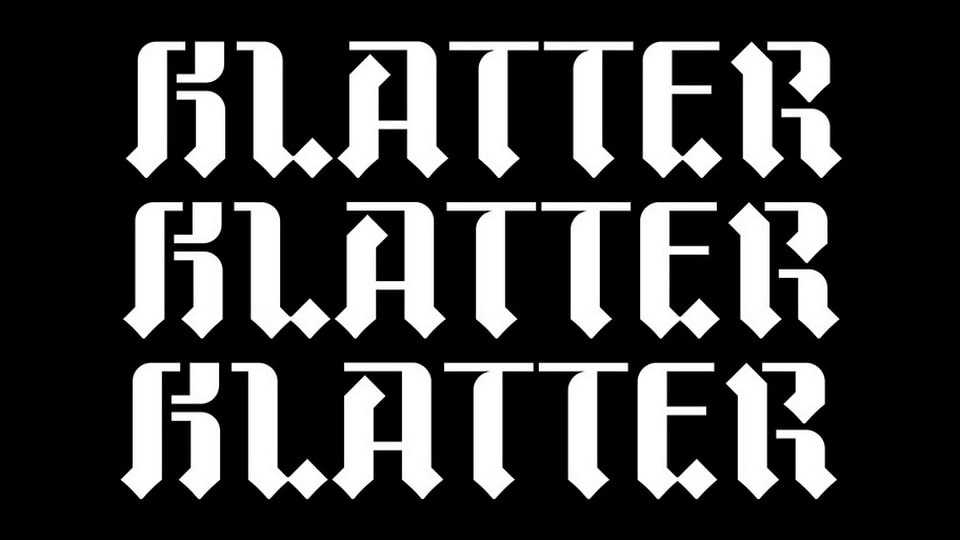
Download Blatter font, a unique and versatile typeface born from a collaborative effort to blend modern aesthetics with the timeless charm of Blackletter. Blatter font is the result of meticulous craftsmanship, offering a perfect balance between tradition and contemporary design.
Designer: Zelow Type